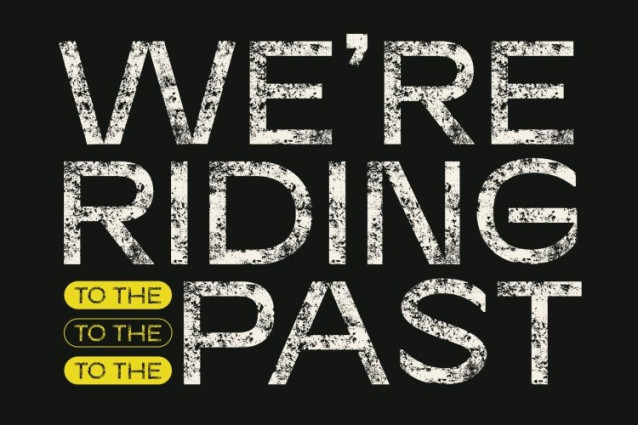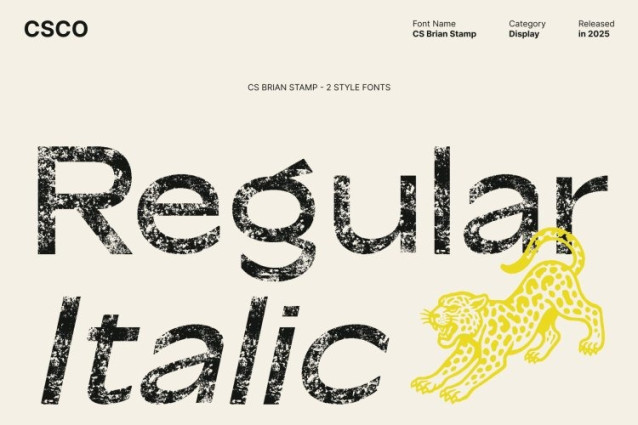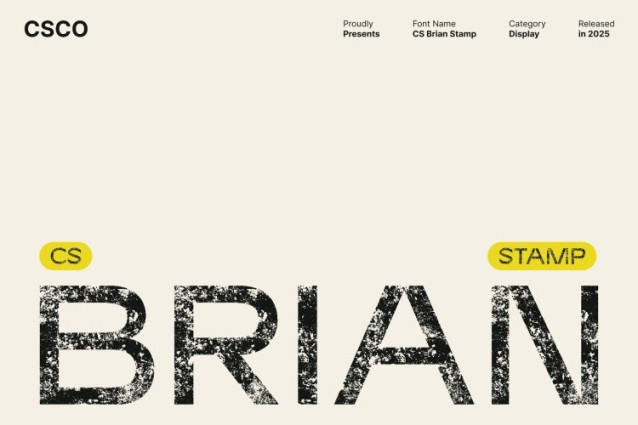
CS Brian Stamp Font
CS Brian Stamp Font This is a modern sans serif font designed to project strength, clarity, and confidence in every letter. Its clean lines and balanced proportions create a contemporary look that feels straightforward yet powerful. Ideal for bold display use, this font ensures your message is delivered with precision and impact.
Expressive Stamp Texture for a Unique Artistic Edge
Enhancing its modern structure, features an expressive stamp texture that adds depth and handcrafted character. The textured finish introduces a raw, artistic vibe, making each character feel more dynamic, lively, and visually engaging.
Perfect Balance of Professionalism and Artistic Expression
While the font maintains a polished and professional look, the added stamp effect gives it a creative twist. This balance allows this font to shine in both corporate and expressive design environments. It delivers trust and strength without losing its artistic charm, making it suitable for designers who want a modern font with a touch of personality.
Ideal for Branding, Posters, Headlines, and Creative Layouts
This font is versatile across a wide range of visual projects. Use it for branding, posters, merchandise, social media, editorial layouts, and bold headlines where clarity and style matter. Its confident forms combined with expressive texture ensure that every design feels strong, compelling, and unmistakably unique.